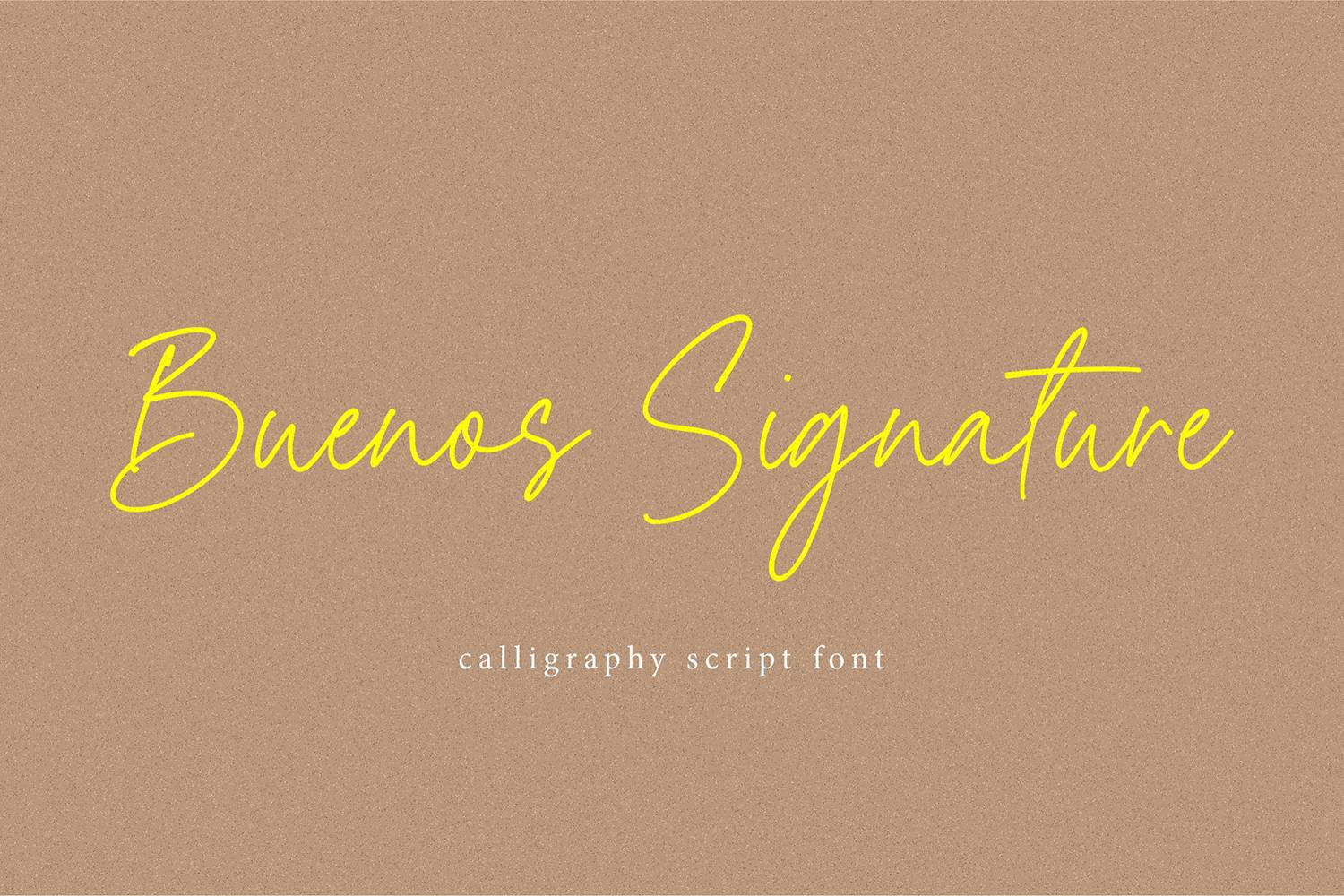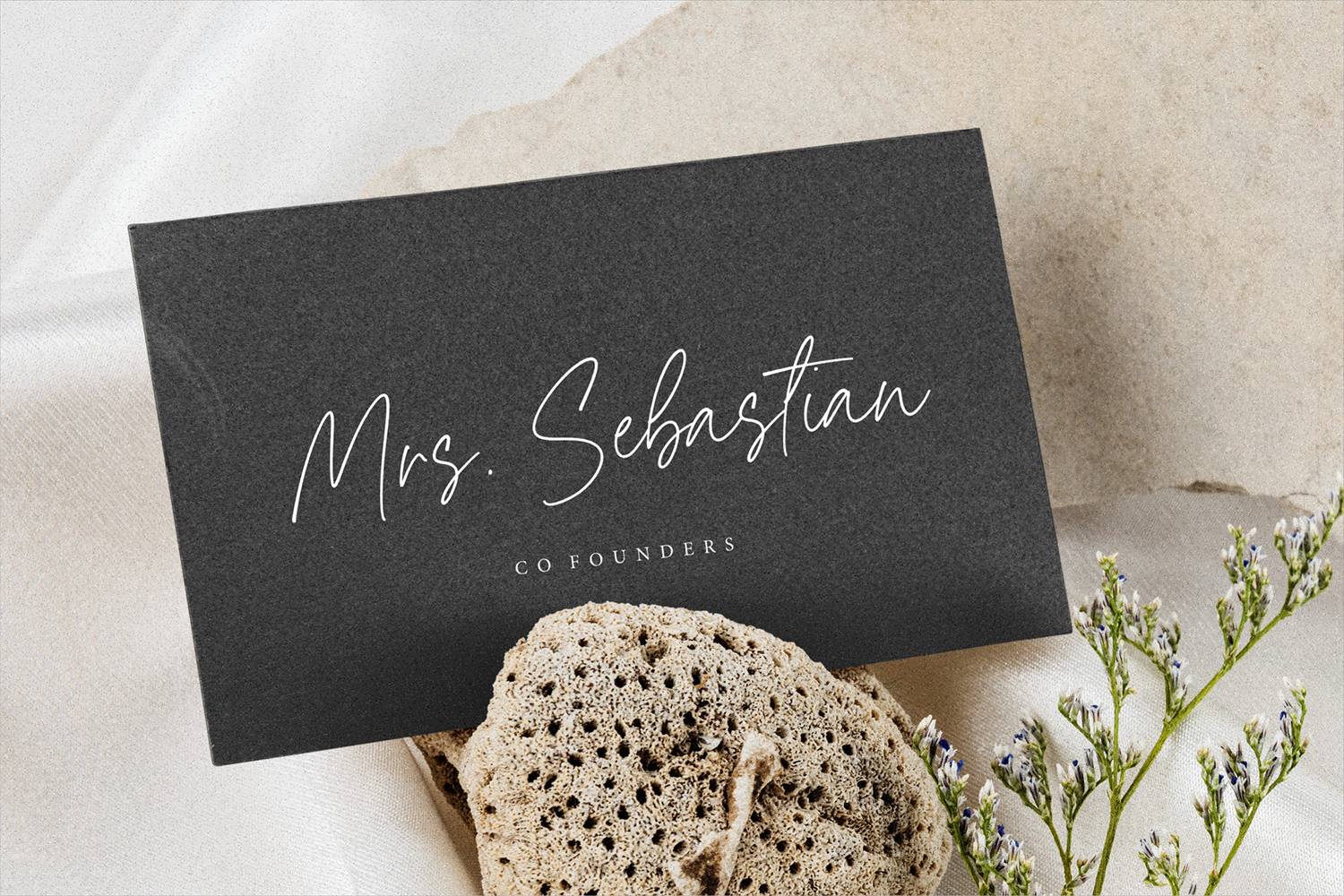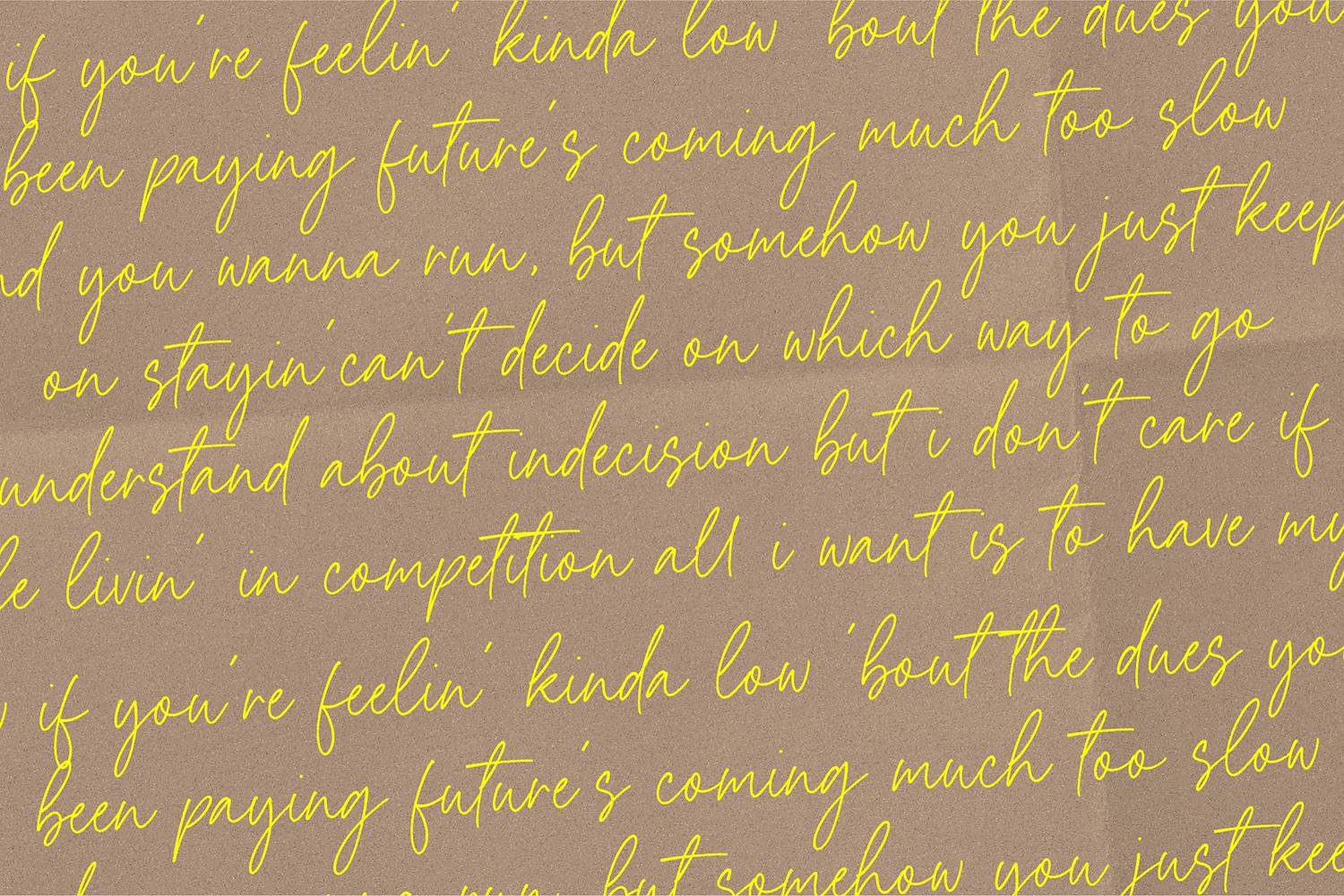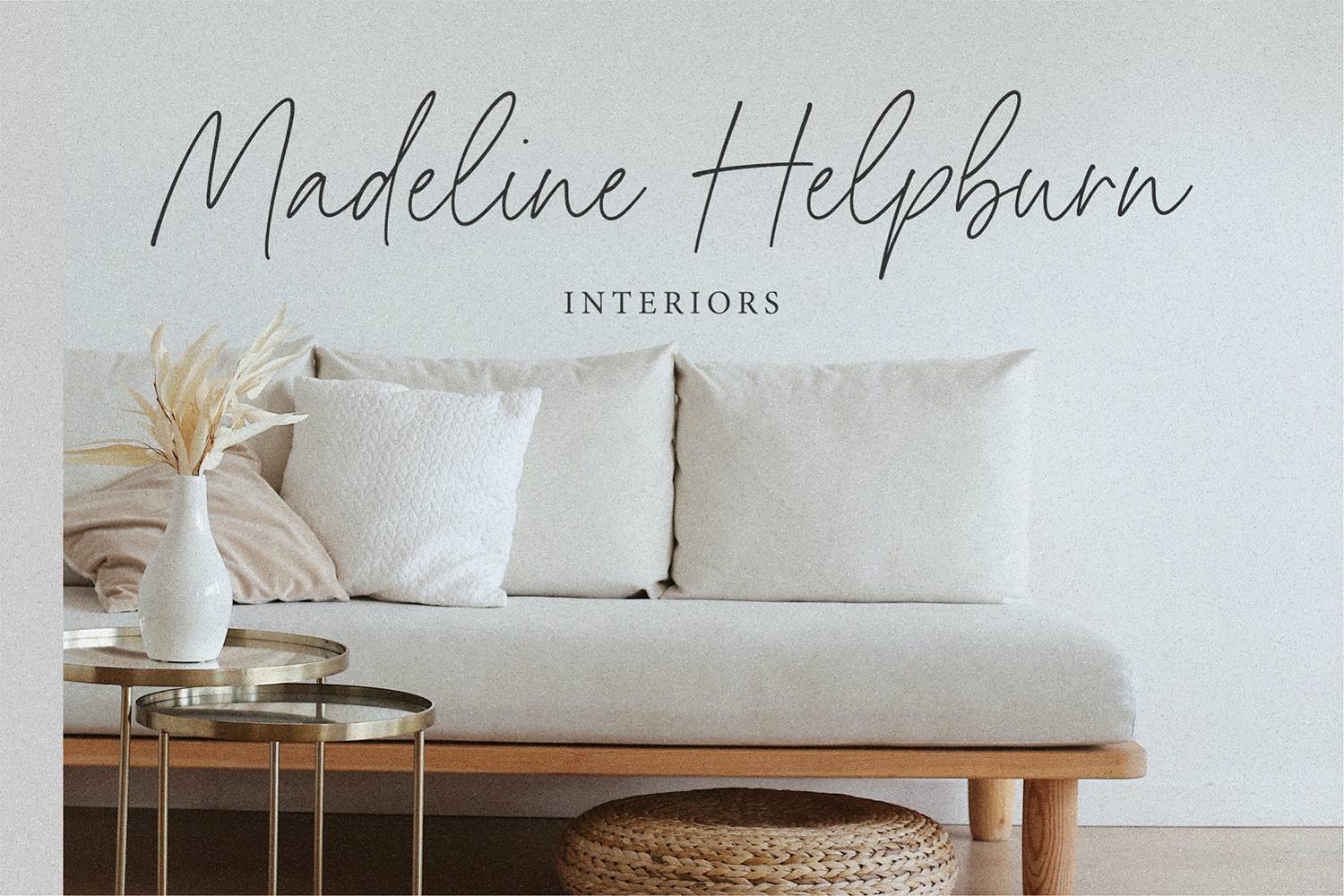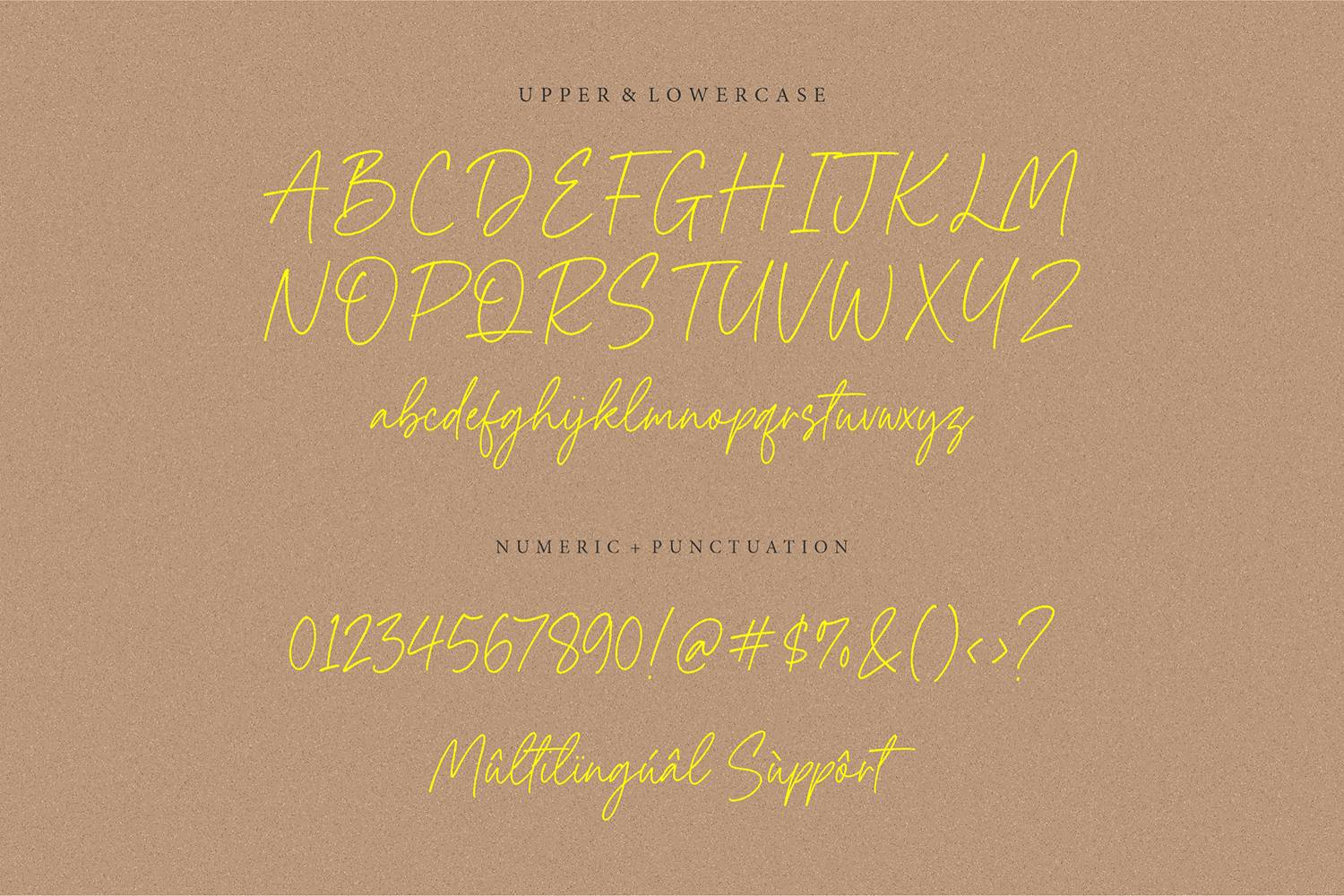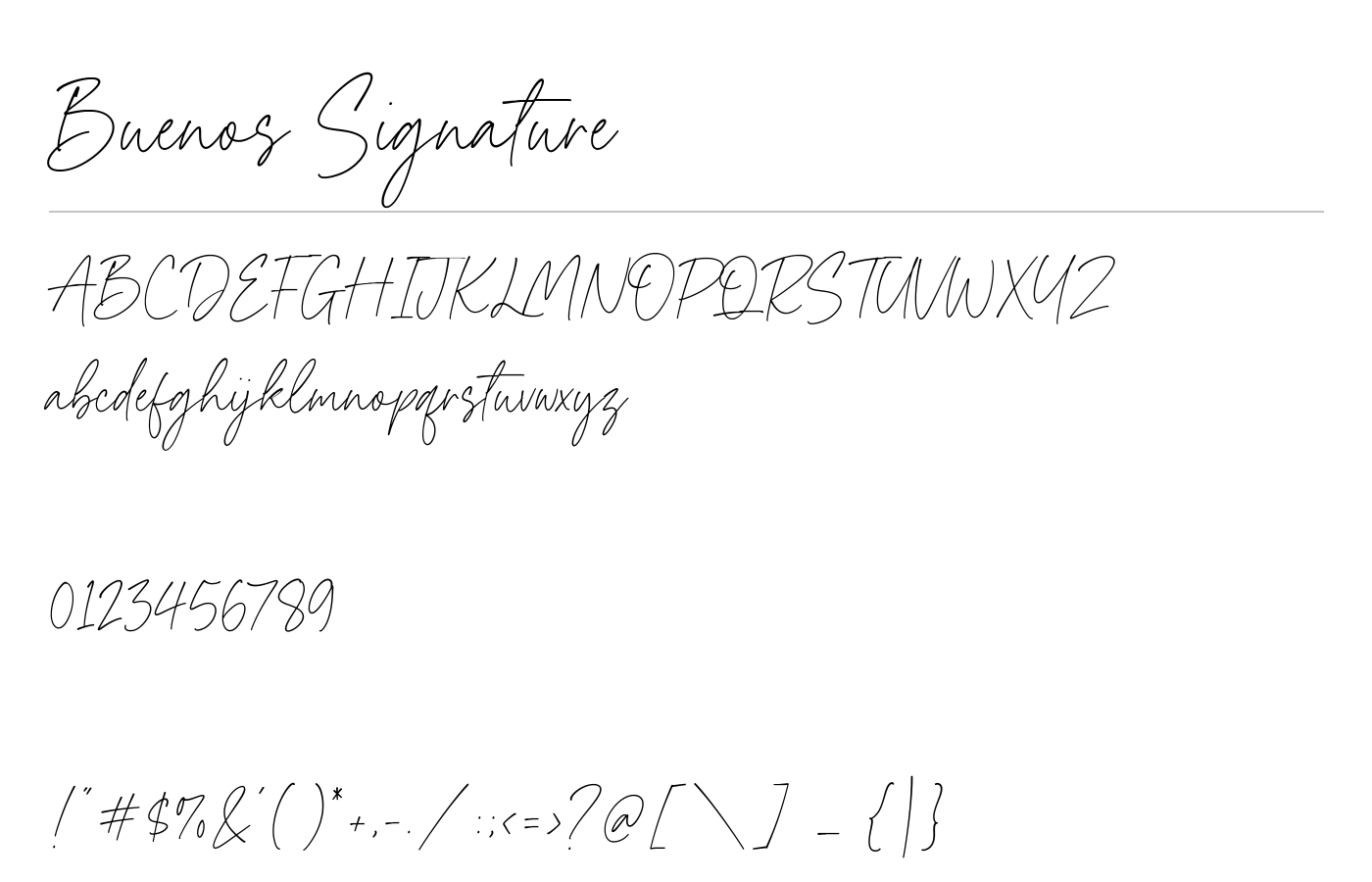
Buenos Signature Font is a delicate and elegant handwritten script that mimics natural, flowing handwriting with thin strokes and a light weight. Its slender, slightly irregular letterforms convey a personal and sophisticated touch, making it perfect for branding, invitations, and creative projects that need a modern yet intimate feel. This font shines in settings where a refined, stylish signature style enhances the overall aesthetic.
Buenos Signature Font
About Buenos Signature Font